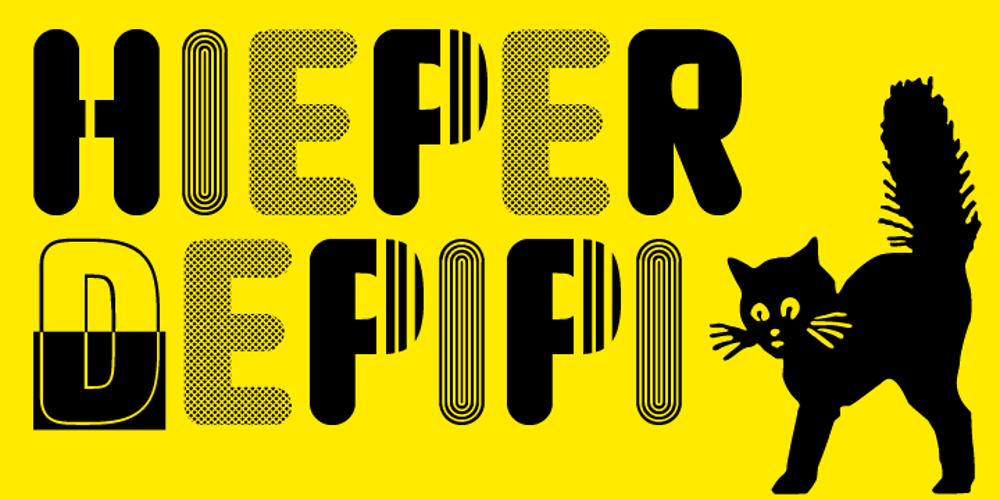
AT Move PiPi
AT Move PiPi font
AT Move PiPi Font Family was designed by André Toet and published by André Toet Design. AT Move PiPi contains 1 styles and family package options. PiPi is named after a happy Italian cat with a remarkable pattern, color and attitude. Designed by Andre Toet in 2011. Every letter is a different expression in itself although it has an identical base. It gives a joyful feeling to use this font in all your designs whether they be graphic or digital. M E O O O W ! Concept/Art Direction/Design: André Toet © 2017